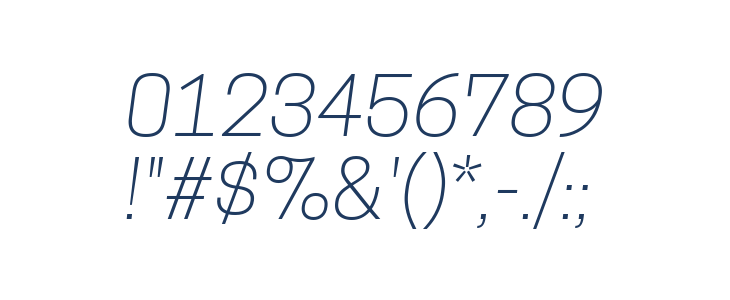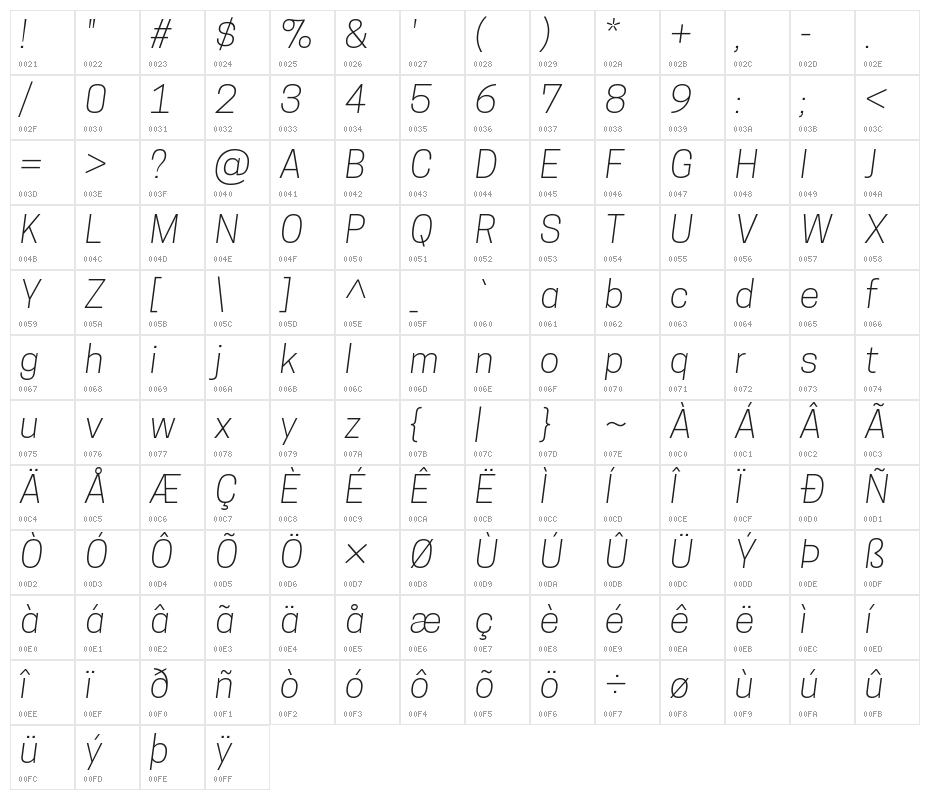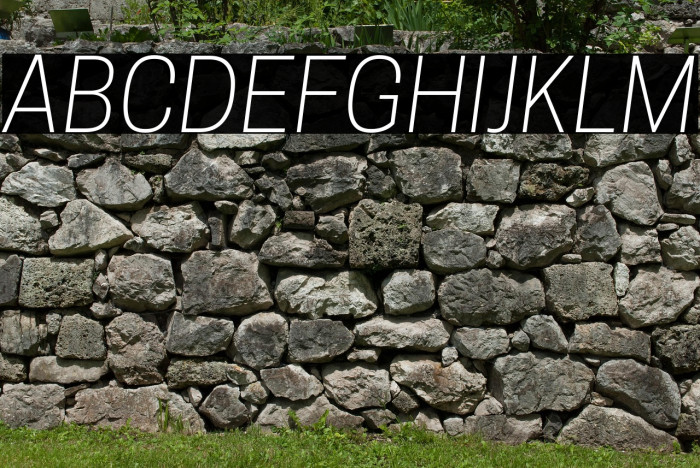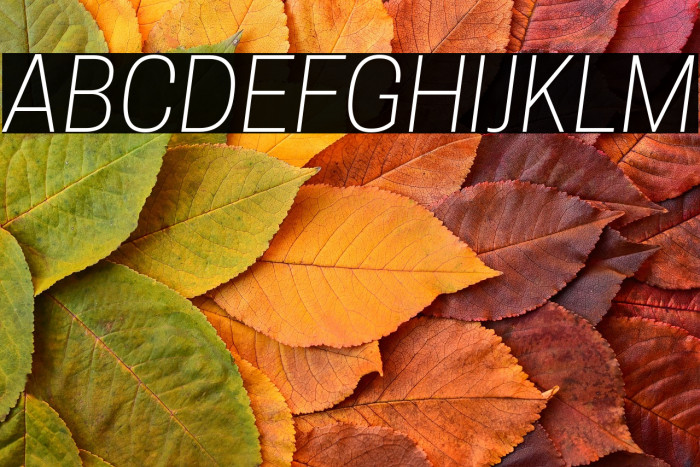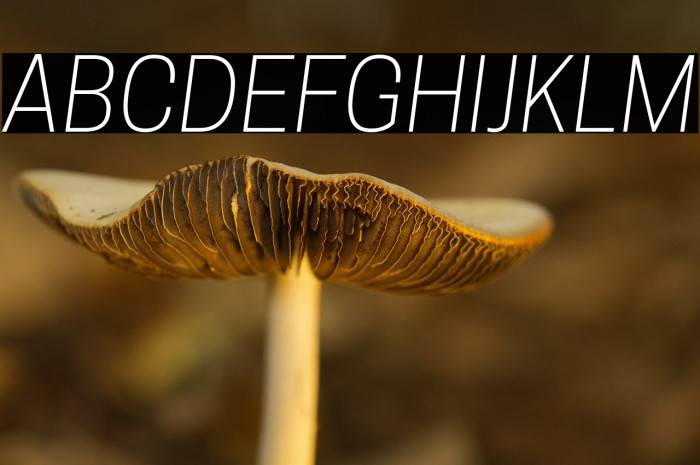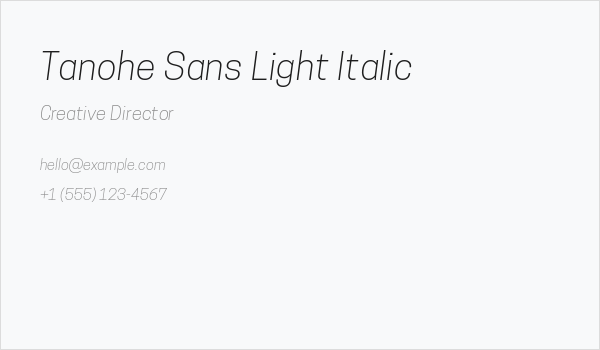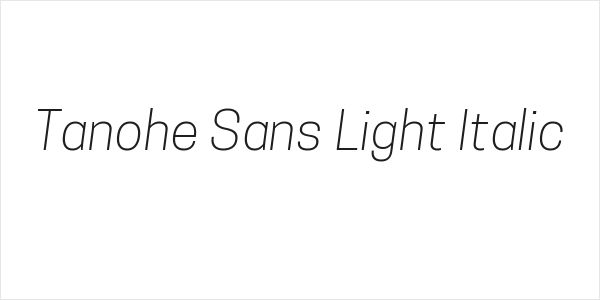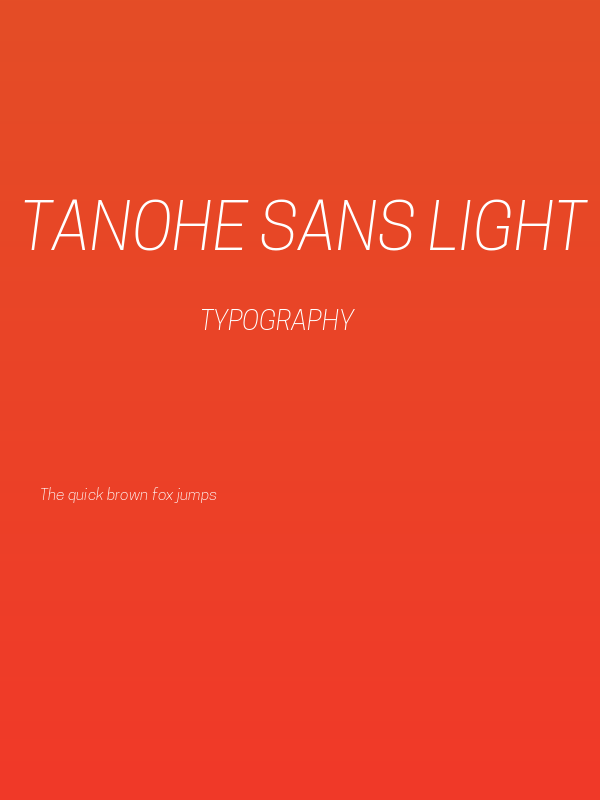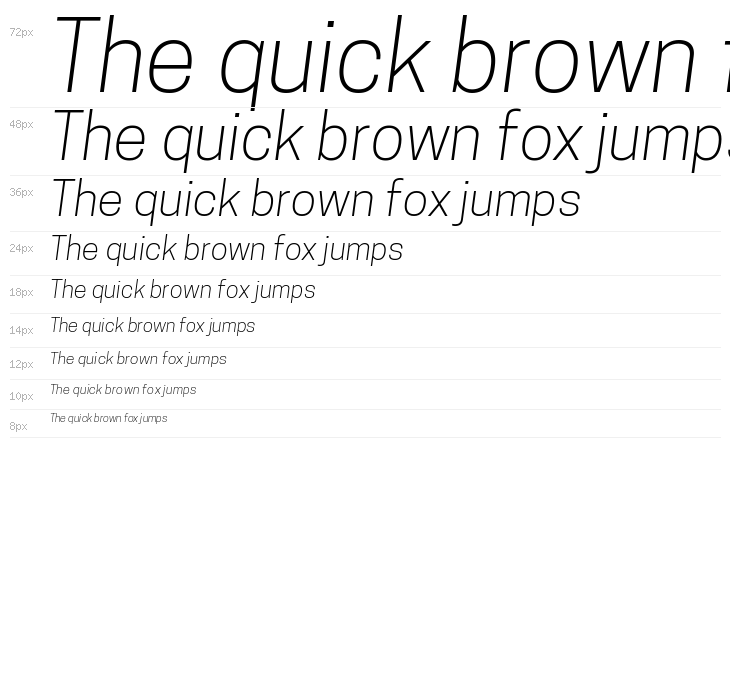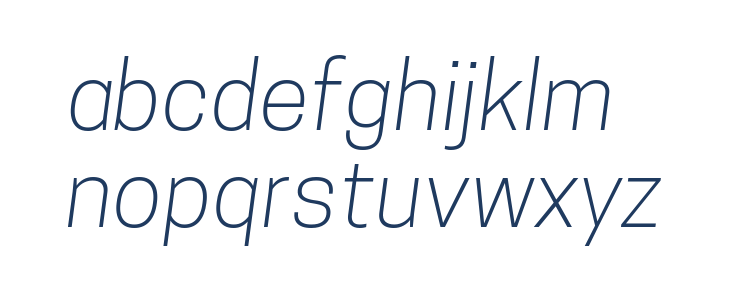
Tanohe Sans Light Italic Font
Tanohe Sans Light Italic Description
This font features a sleek and modern sans-serif design with a light weight and italic style. The characters are elegantly slanted, giving a sense of motion and fluidity. The strokes are consistent and smooth, with a uniform thickness that enhances readability. The overall appearance is clean and minimalistic, making it suitable for contemporary design projects. The character set includes uppercase and lowercase letters, numbers, and a variety of special characters, all maintaining a cohesive and harmonious look.
Proposed ProjectsIdeal for modern branding, editorial design, websites, and digital interfaces where a clean and sophisticated look is desired.